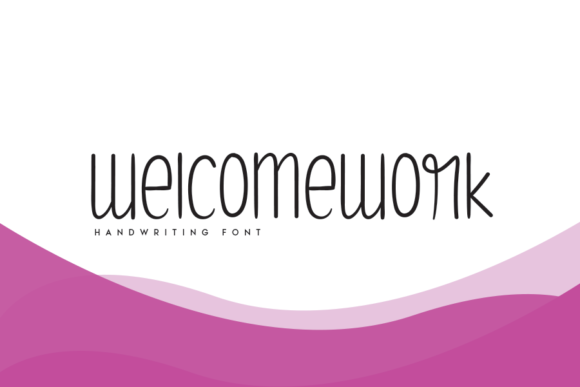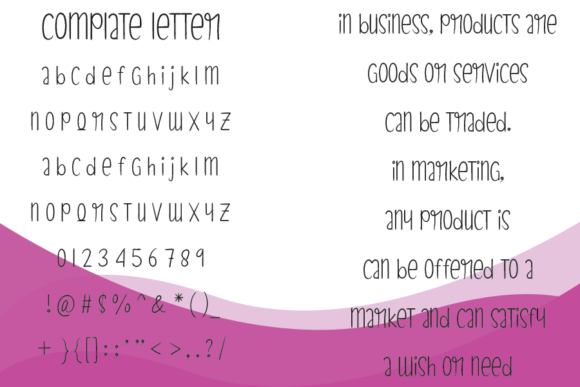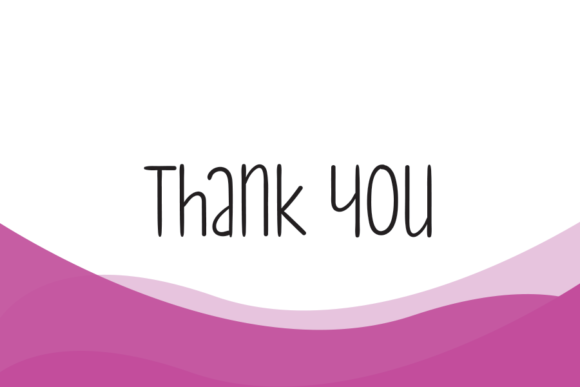
Welcomework Font
Welcomework is a unique and simple lettered handwritten font. Its natural and neat style makes it incredibly fitting to a large pool of designs. The only limit is your imagination!